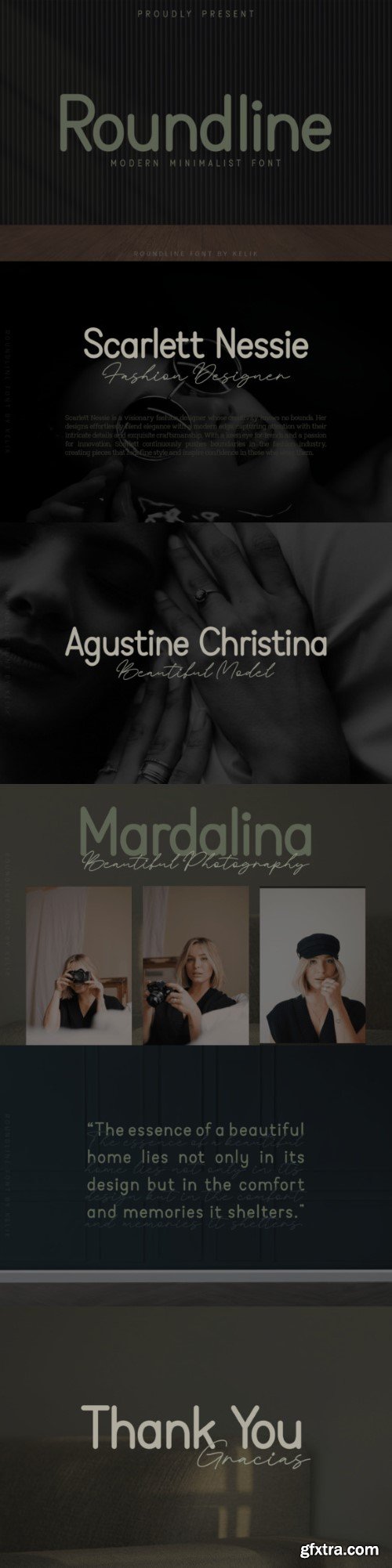
圆形线字体
Roundline is a modern minimalist font that keeps things clean and stylish. With rounded edges and a sleek design, it’s perfect for a contemporary, no-frills look. Whether you’re working on a website, poster, or any project that demands simplicity with a touch of modernity, Roundline delivers. Its straightforward lines make your text effortlessly chic and easy on the eyes, ensuring a fresh and modern aesthetic. Embrace the beauty of simplicity with Roundline for a polished and modern typographic experience.